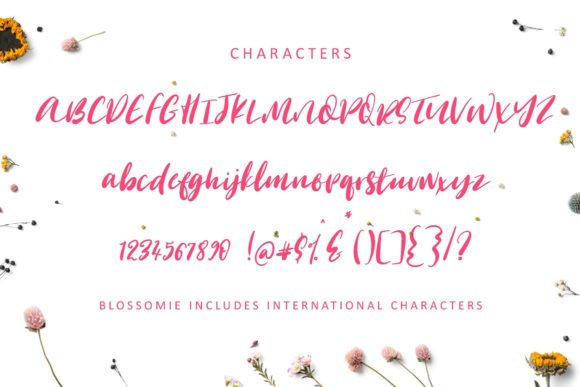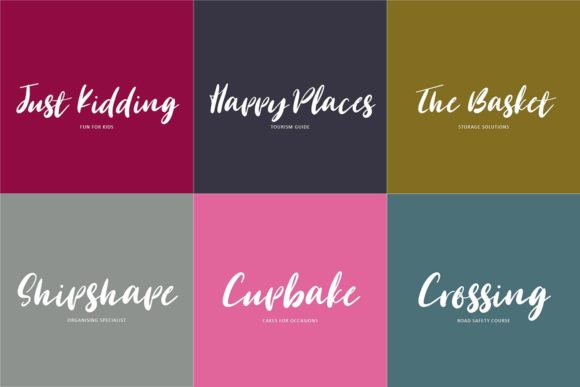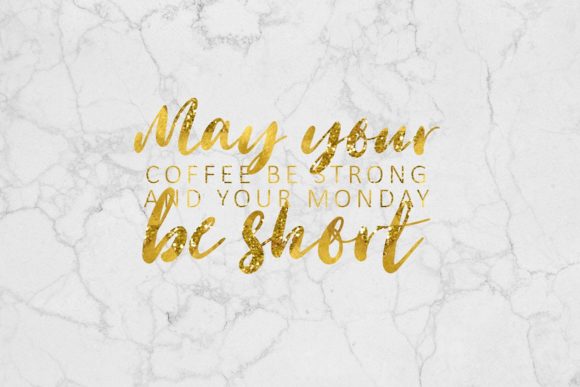
Blossomie Font
About Blossomie Font
The Blossomie is an adorable hand painted brush script font. It has a great readability and is perfect for adding an elegant, yet striking touch to your designs.